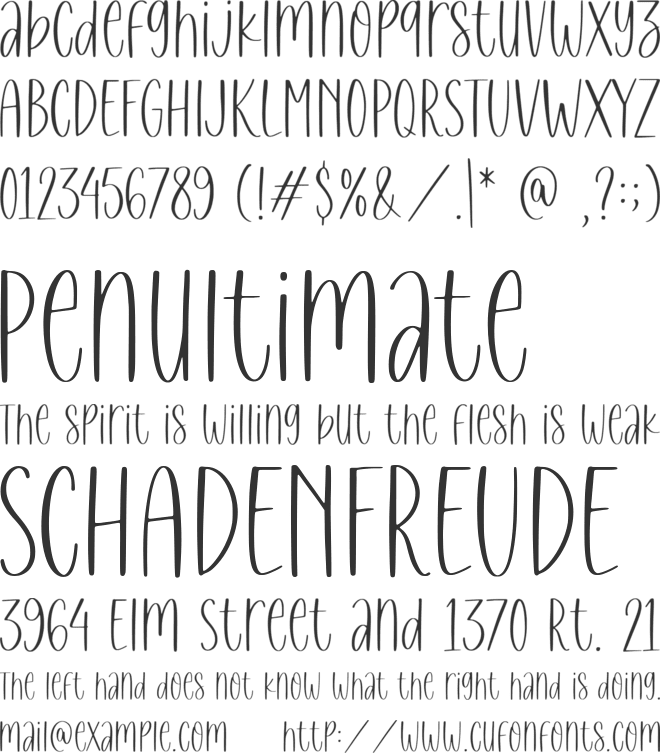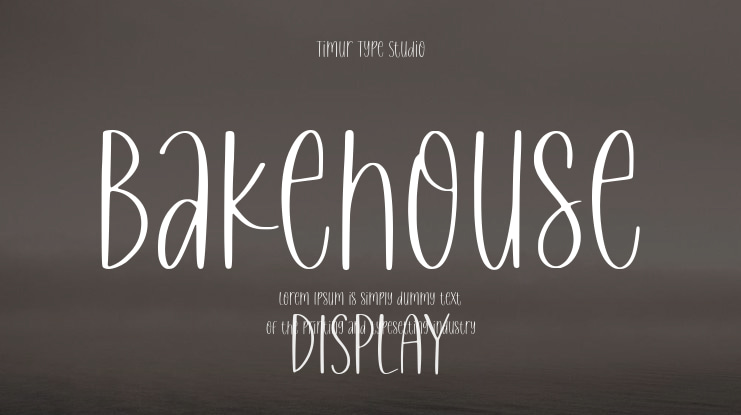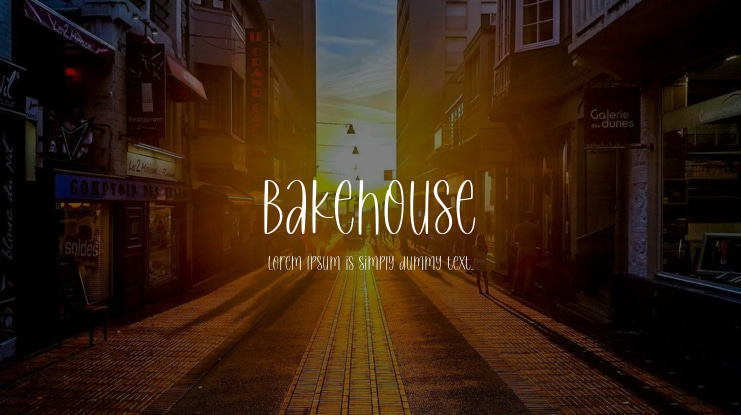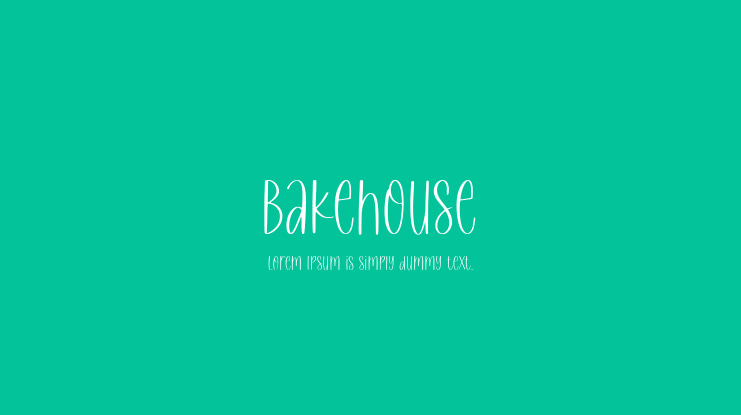
Bakehouse Font
Timur Type Studio
Introduced by Timurtype Studio!
Bakehouse is a Handwritten Font
This font echo the timeless elegance of pen to paper, forging a connection that transcends the digital divide. Each curve and loop tells a story, infusing words with the authenticity that only the human touch can provide. where letters become a brush, and every stroke paints a tale of creativity and character.
Bakehouse font is perfect for product packaging, branding project, megazine, social media, wedding, or just used to express words above the background.
Bakehouse Font also supports multilingualism.